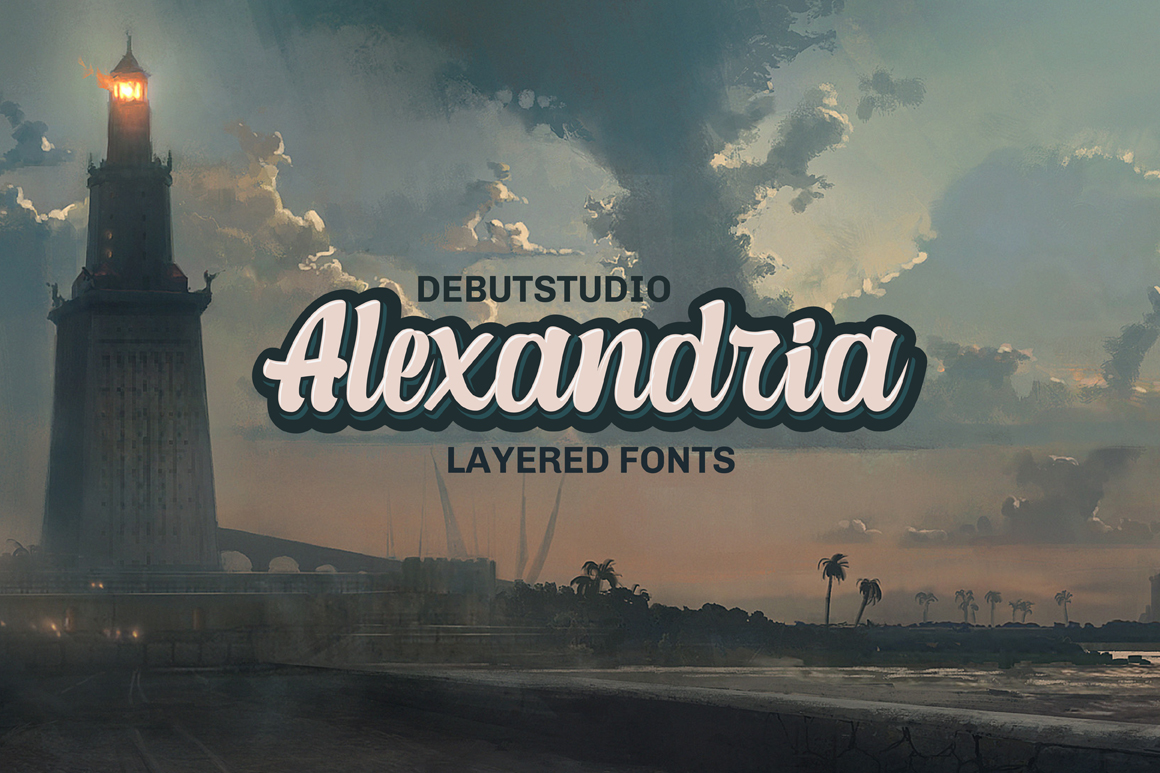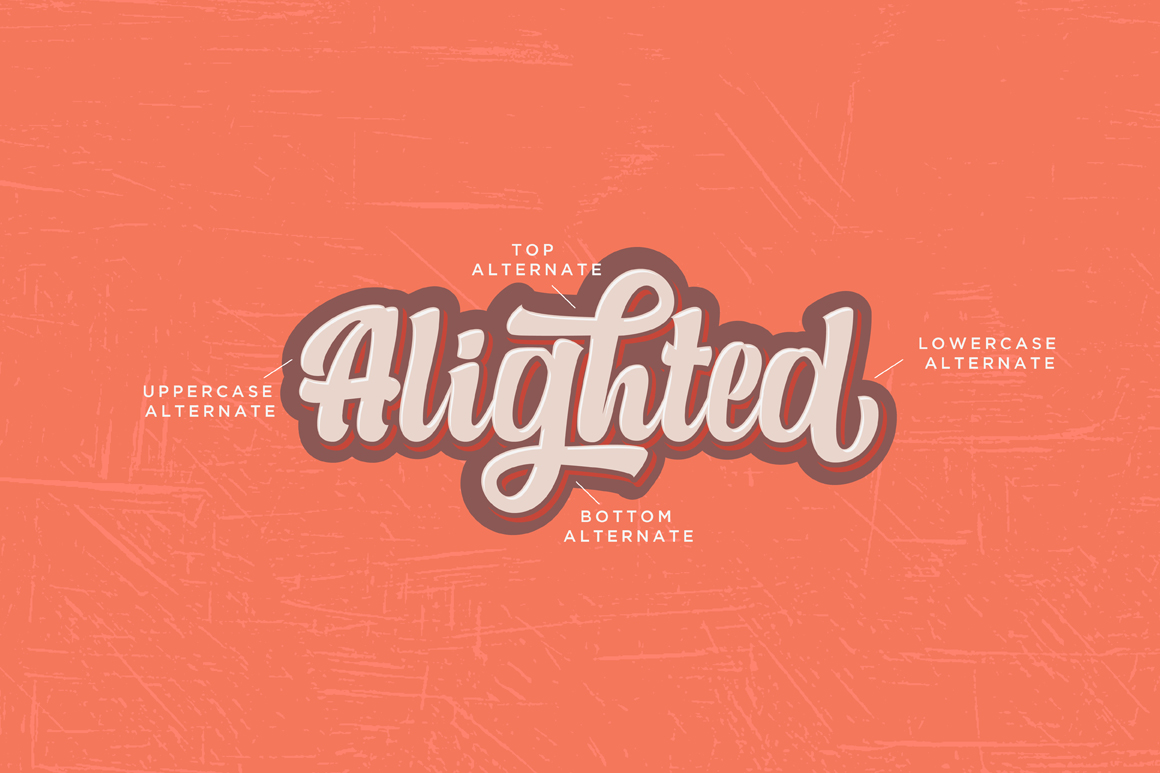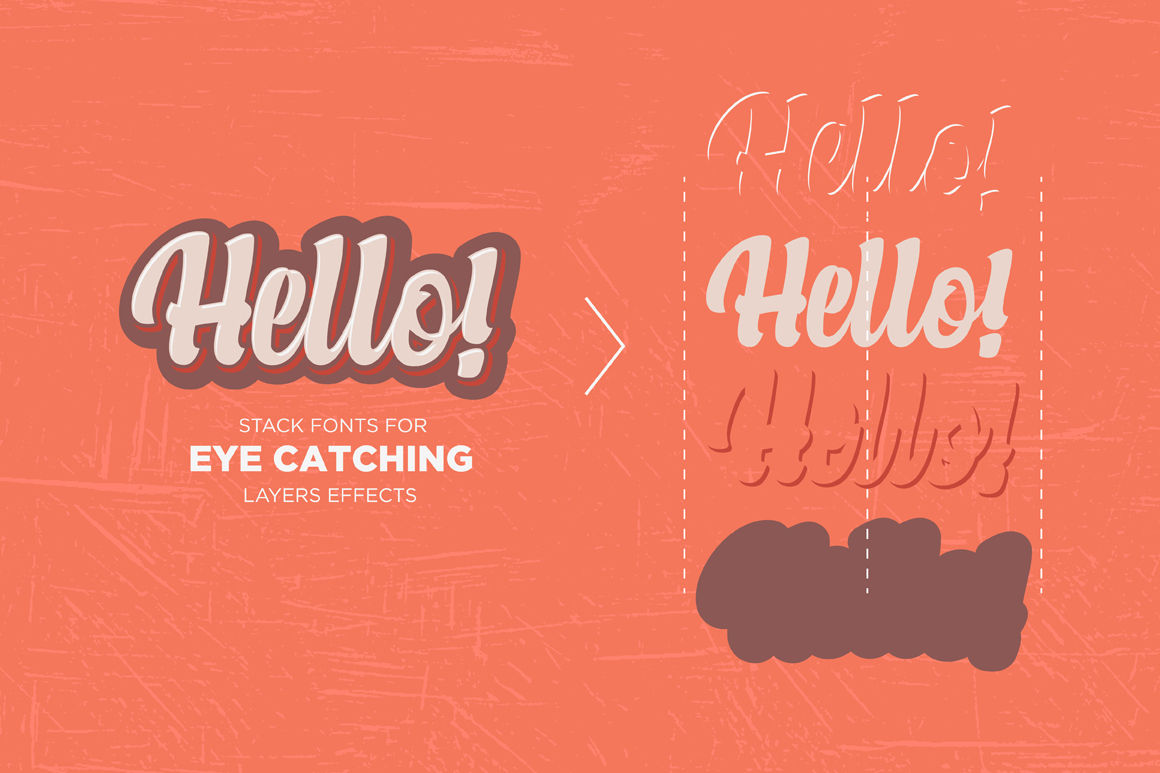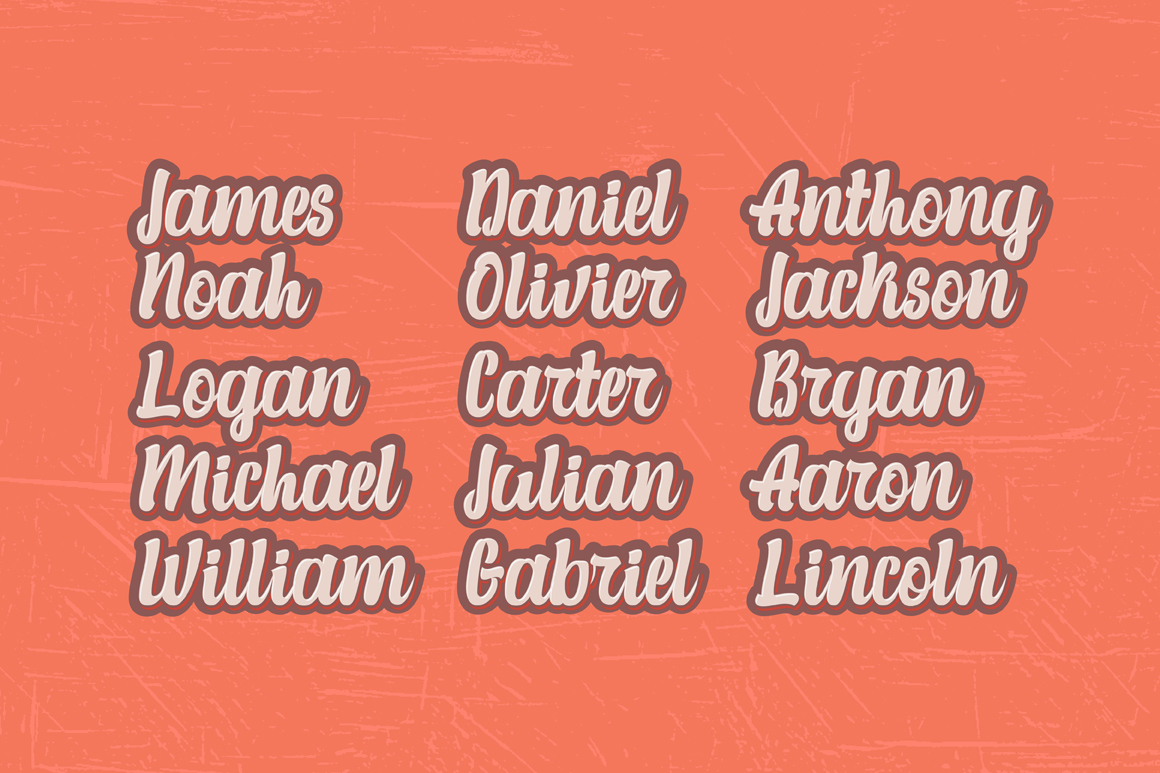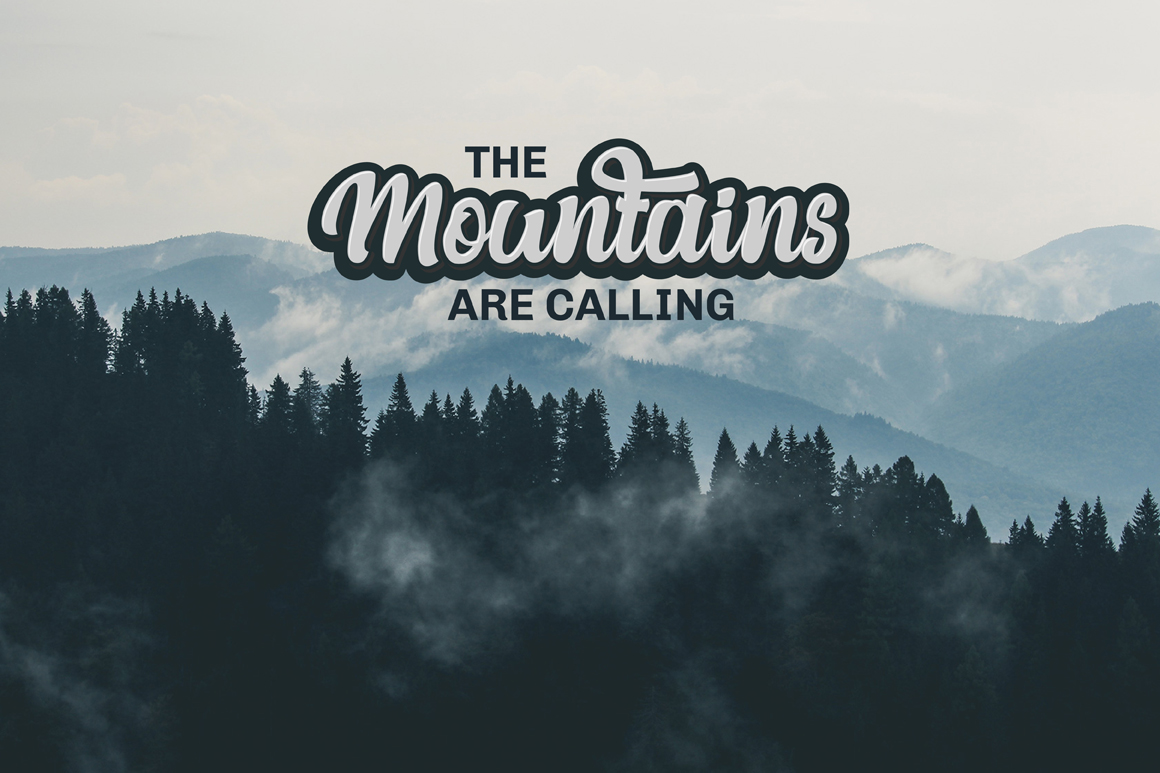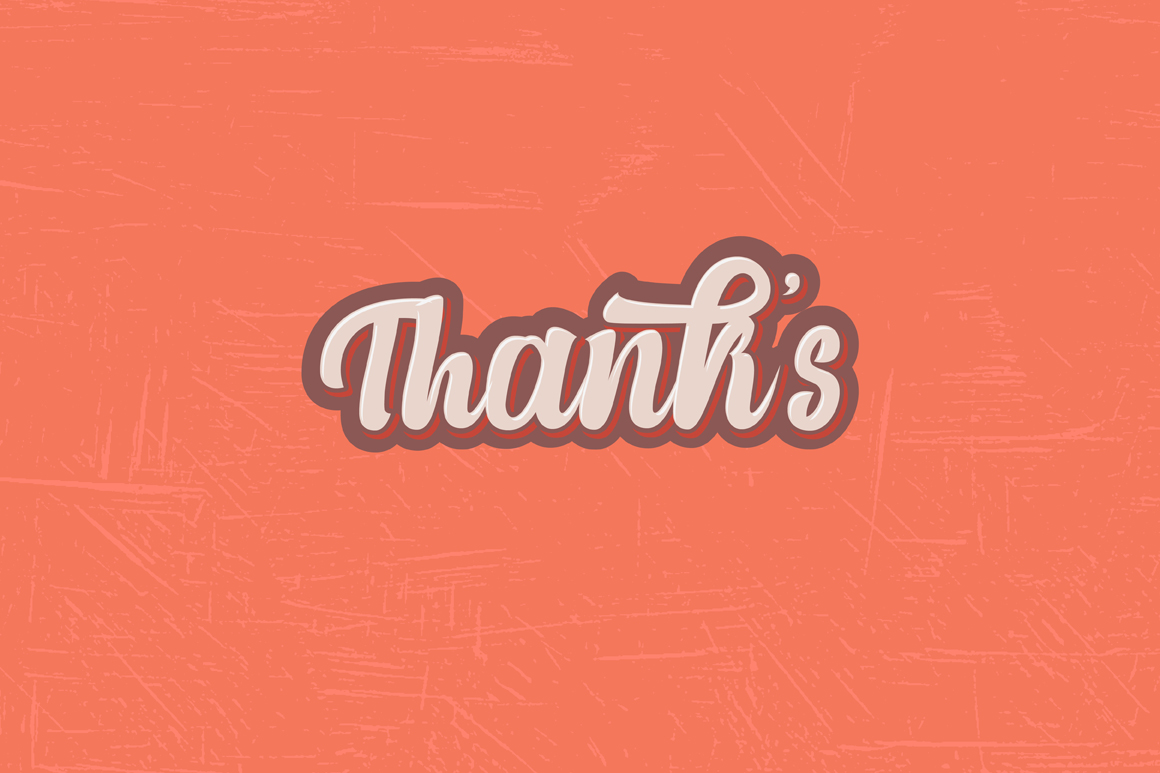
Alexandria Script Font
About Alexandria Script Font
Alexandria Script is a gorgeous script font, beautifully crafted with displays in mind. This font has 4 styles, and when combined can make stunning designs.